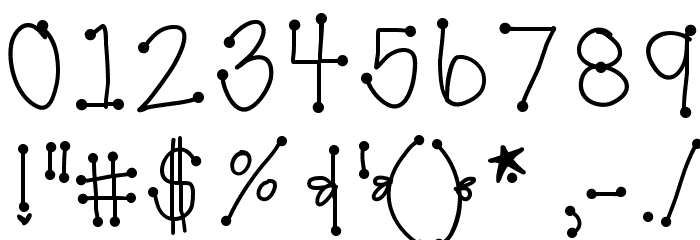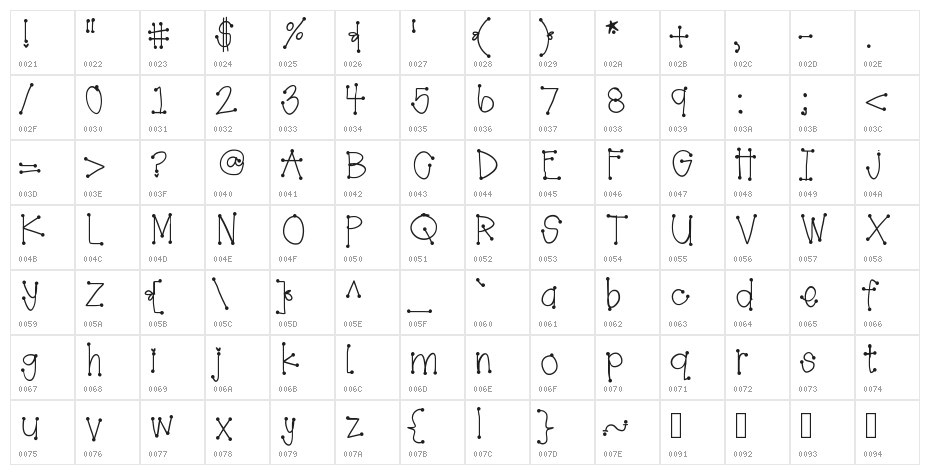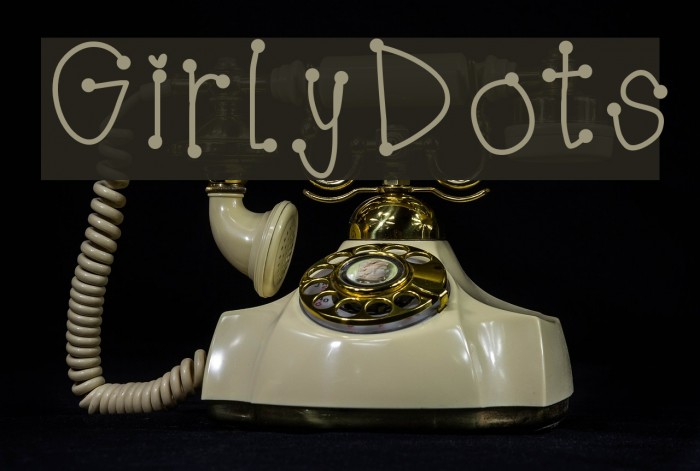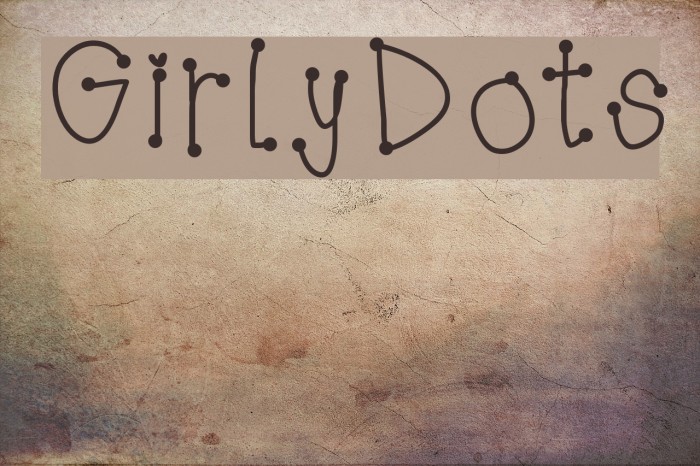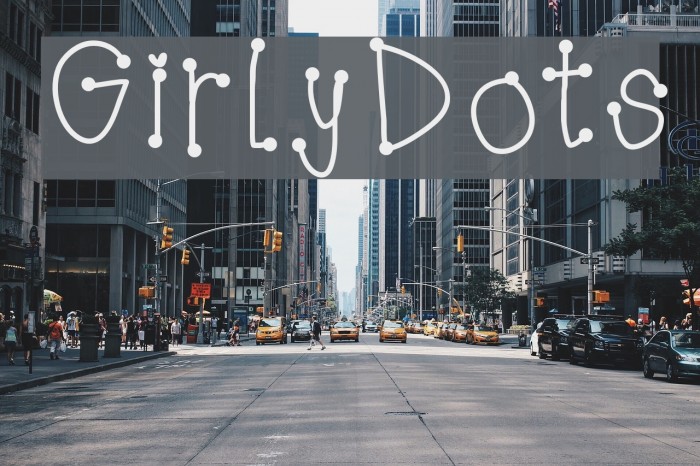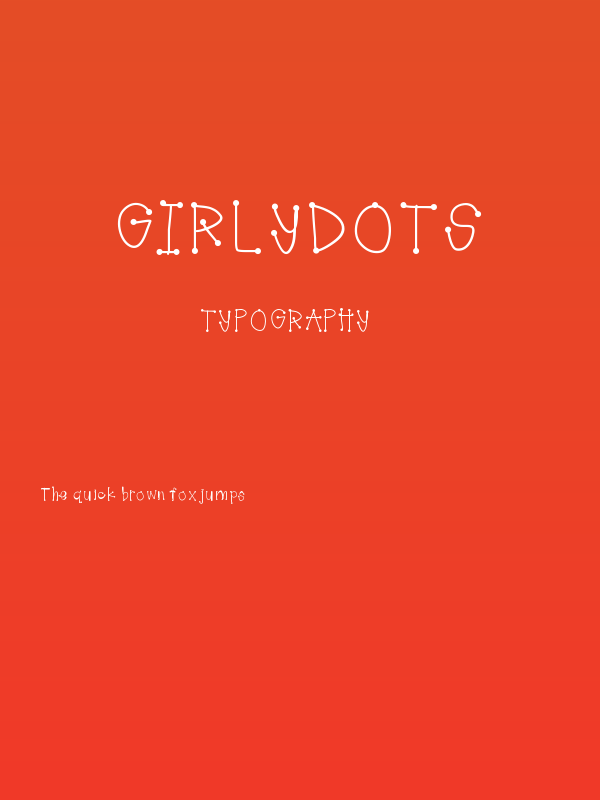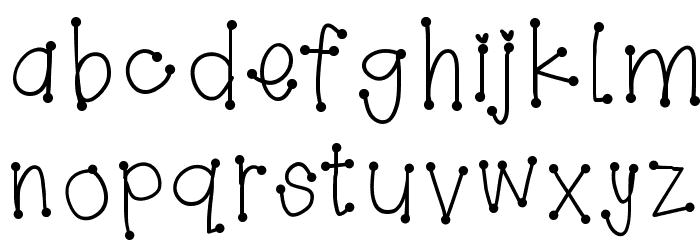
GirlyDots Font
GirlyDots Description
This playful and whimsical font features a unique design where each character is adorned with dots at the end of its strokes, creating a lively and fun appearance. The letters are crafted with a casual, handwritten style that adds a touch of charm and personality. The rounded edges and consistent dot embellishments give it a cohesive look, making it ideal for projects that require a friendly and approachable feel. The font maintains a consistent weight throughout, with medium contrast in stroke thickness, ensuring readability while retaining its decorative flair.
| Proposed Projects | Perfect for children's books, playful invitations, greeting cards, and creative branding projects. |